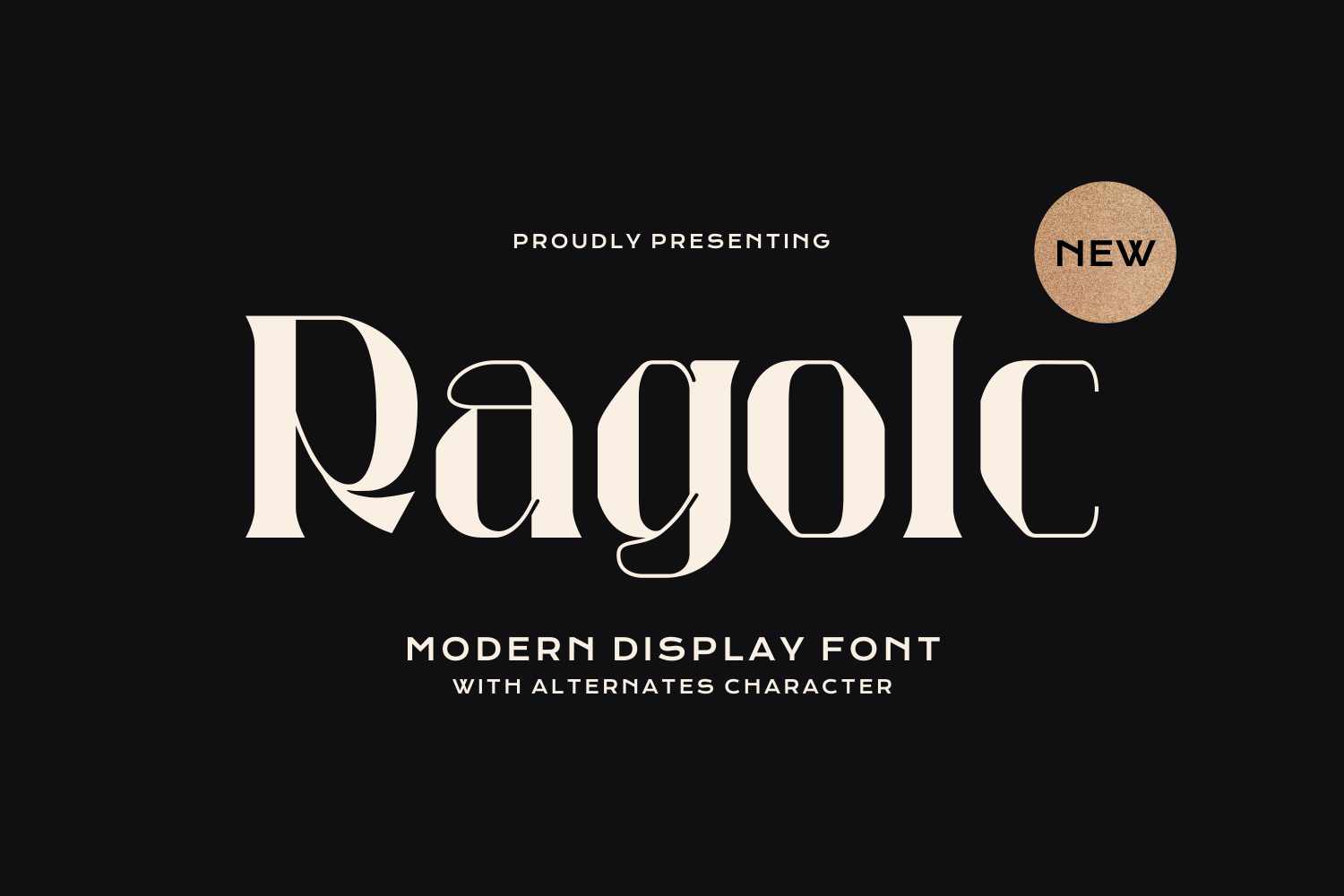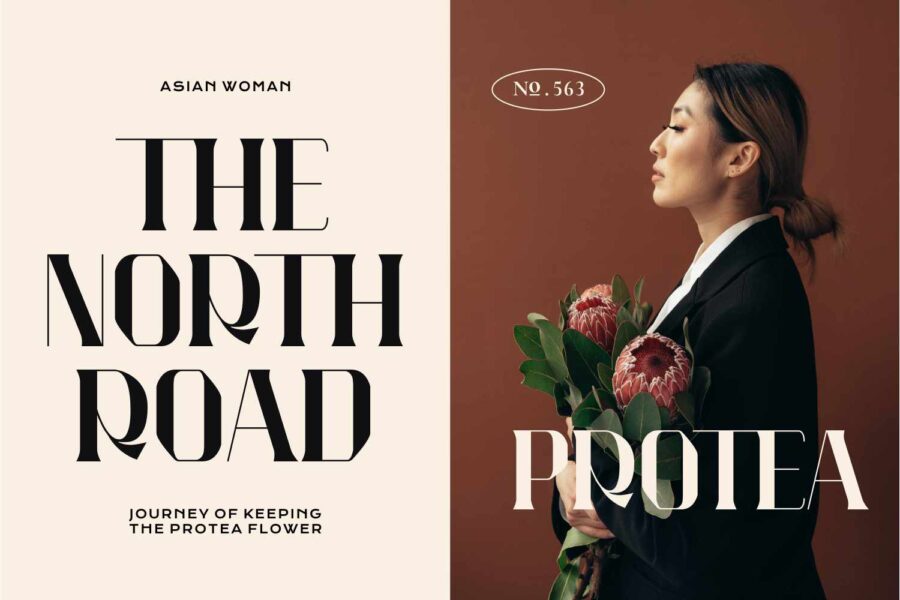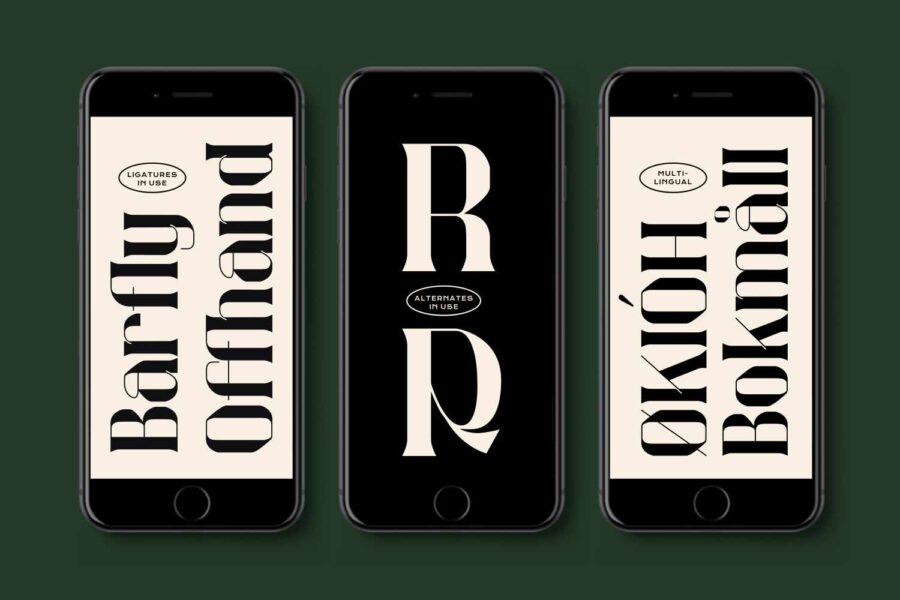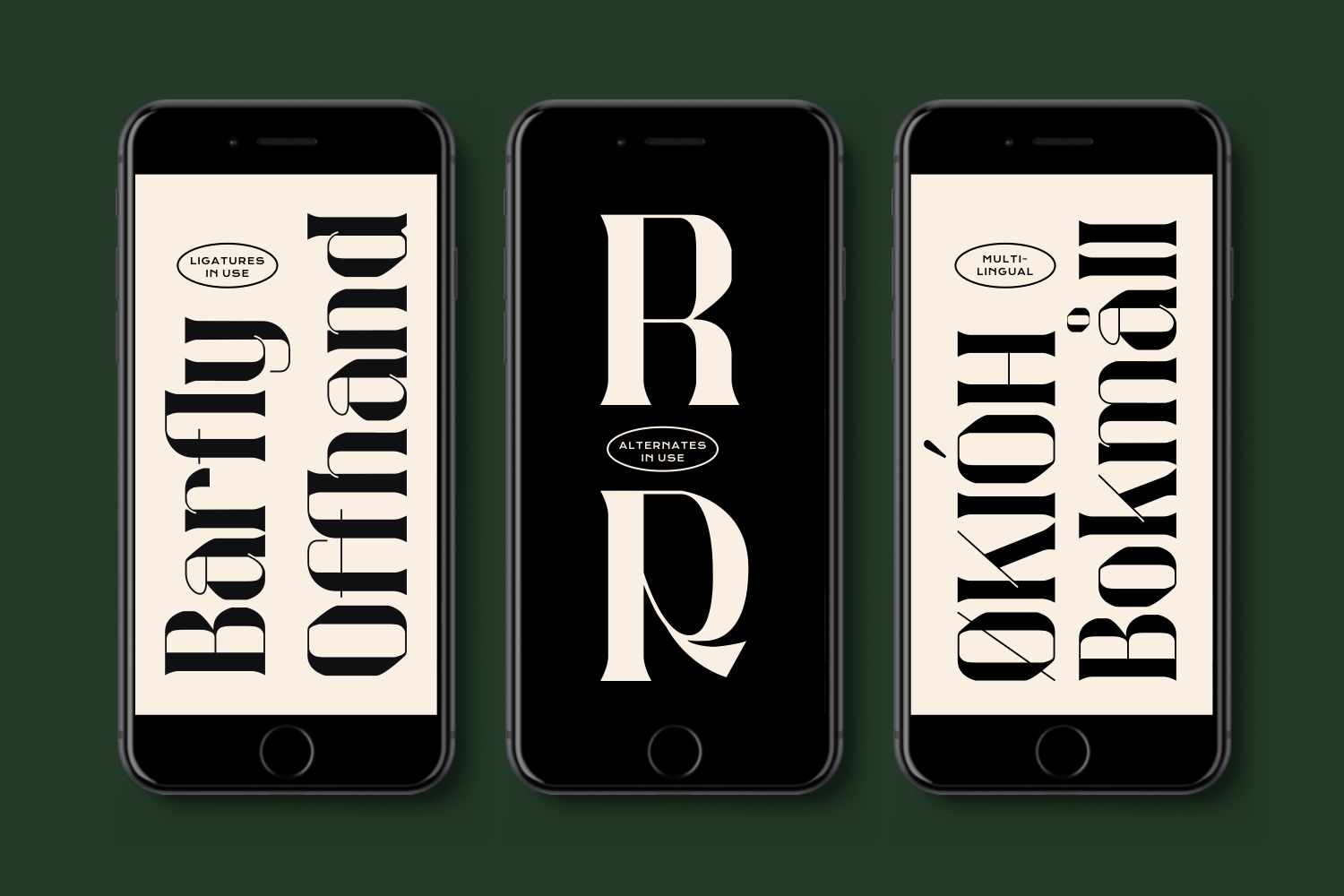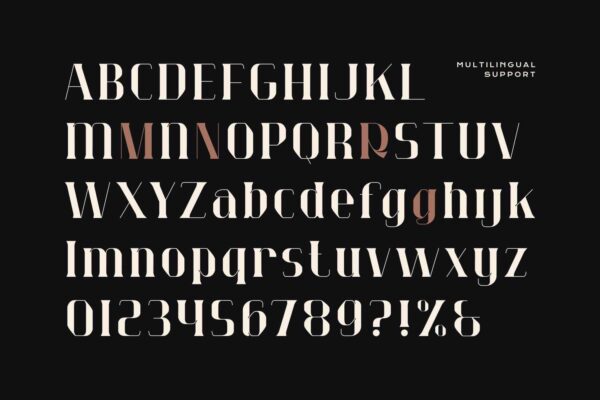
Ragolc is a modern display font crafted with a bold aesthetic and dramatic character forms. It features high contrast between thick and thin strokes, alongside distinctive alternate letterforms that bring sophistication and individuality to any headline. Its refined curves and sharp terminals give it a strong editorial presence while maintaining a sense of contemporary elegance.
This font is perfect for branding, fashion magazines, packaging, and high-end promotions that require impactful typographic expression. Ragolc comes with alternate characters, multilingual support, and unique ligatures that elevate your designs with both modernity and flair.